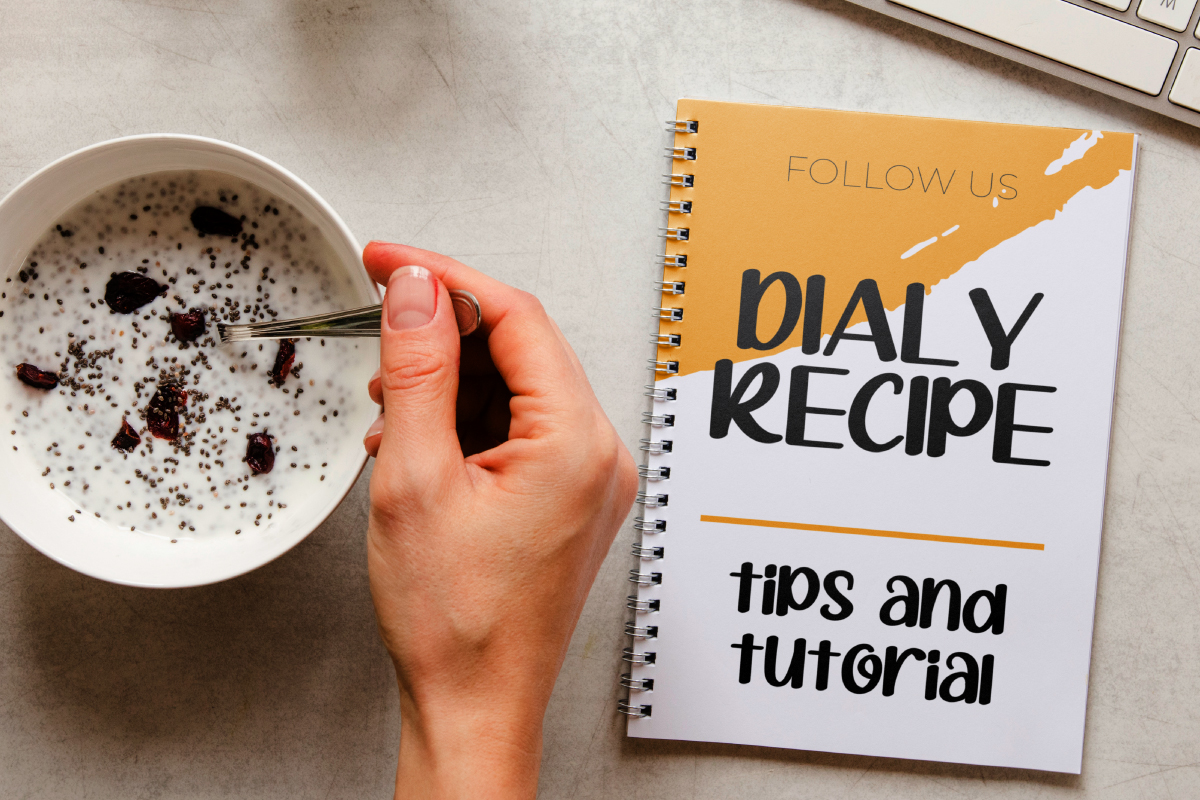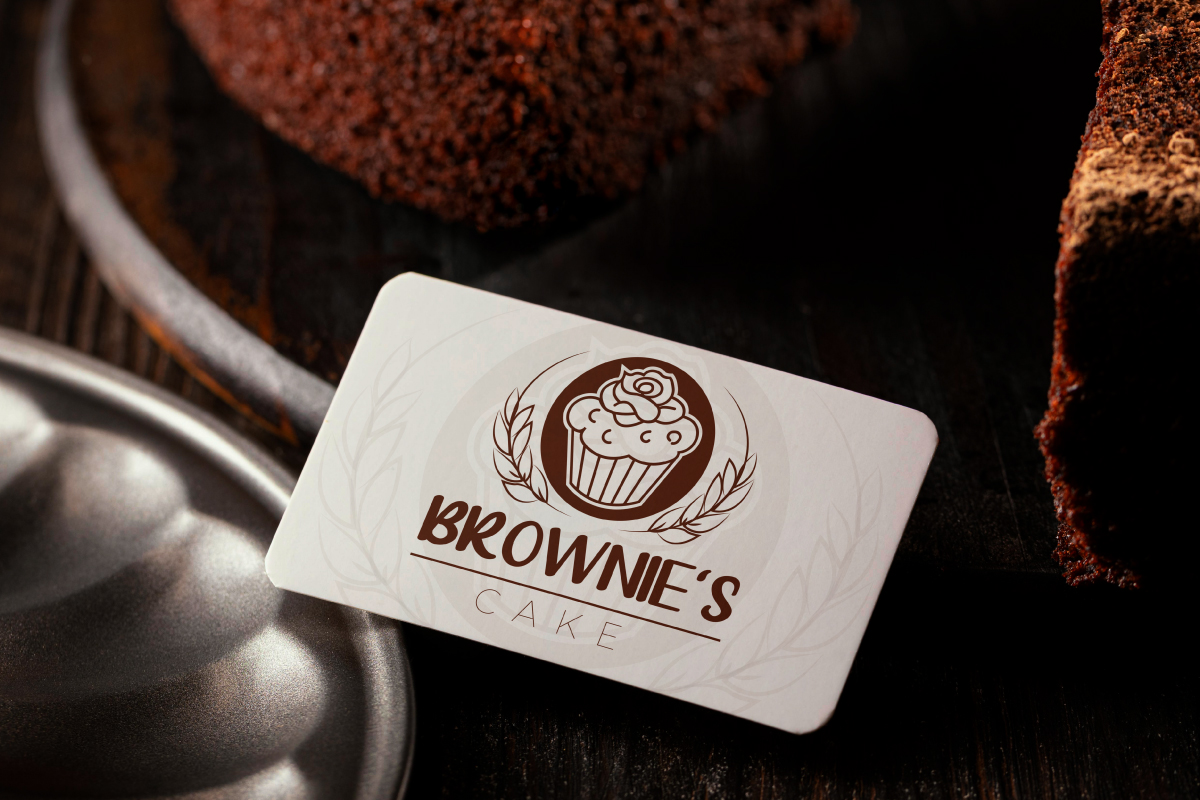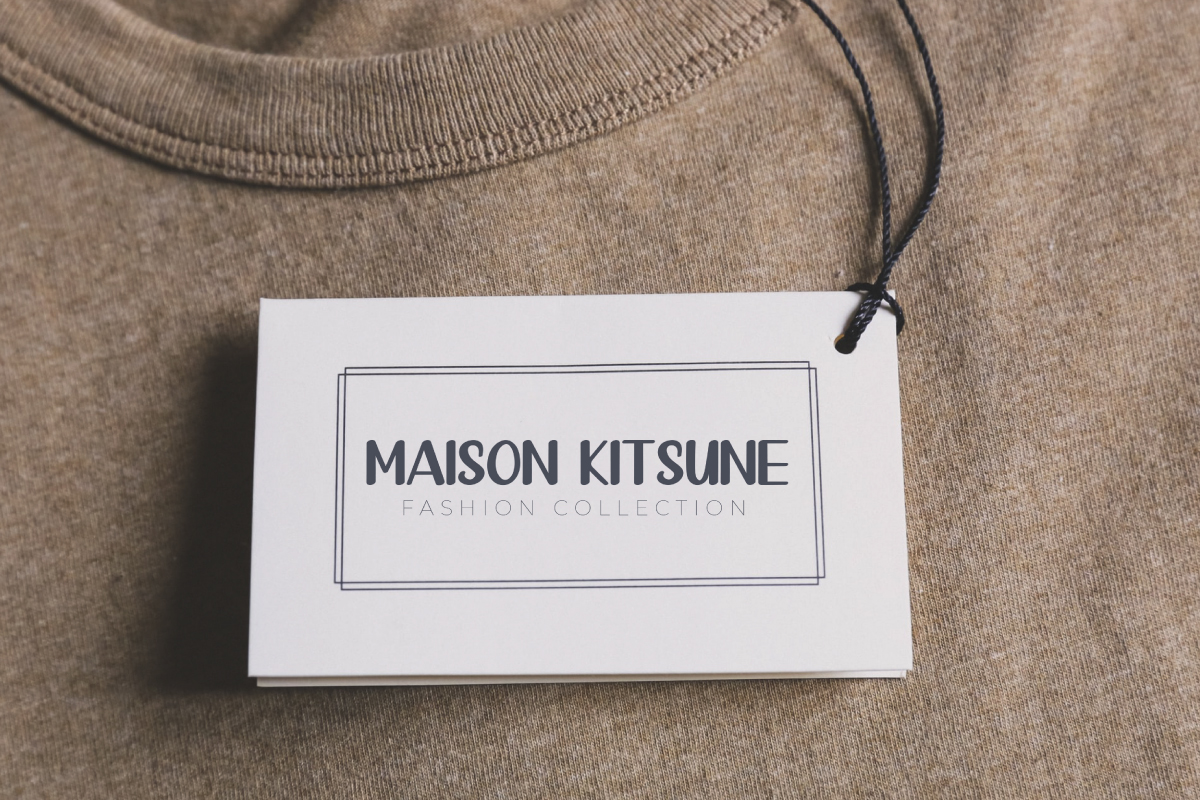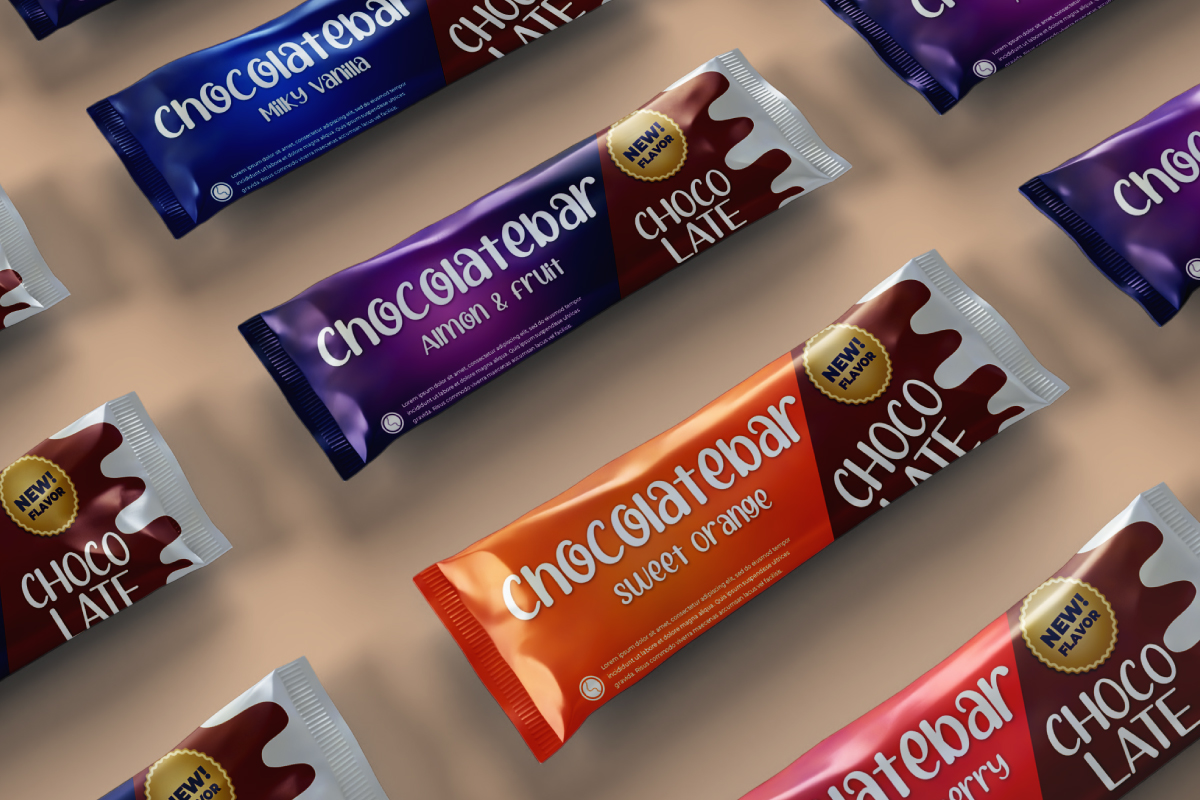
Bread Rolls Font
Bread Rolls Script Font
This font will be great for any projects (require extended license) including : branding, logo, stationery, wedding invitation, signage, flyer, video tittle etc. The theme style of the font is playful, classic and casual brush style. The font will be match for this typeface: houseware, cosmetic, events, artist, musician, café, coffee, promotion, etc